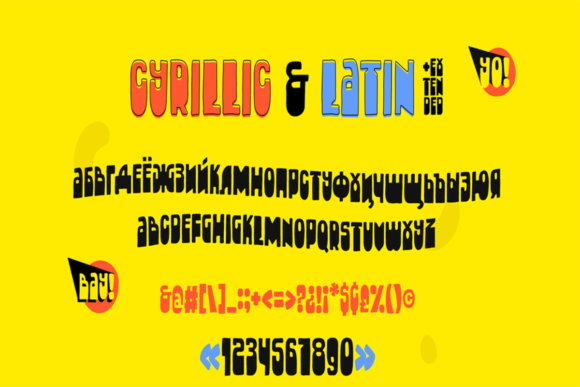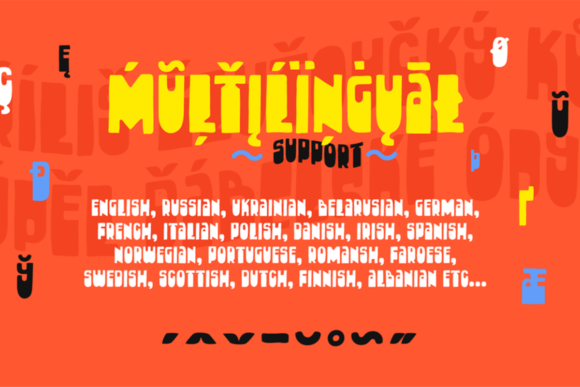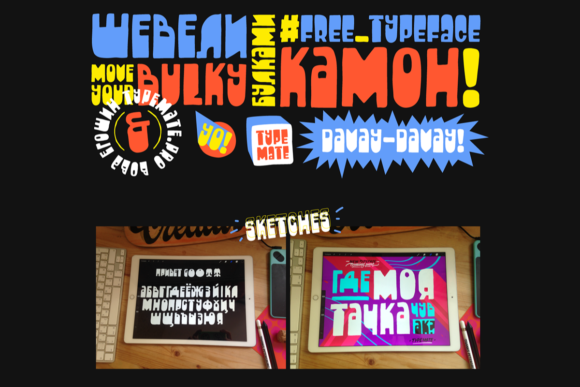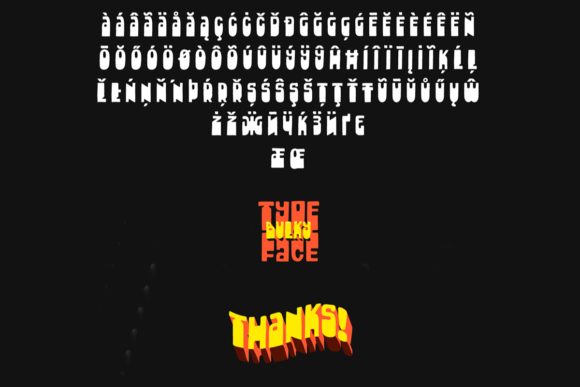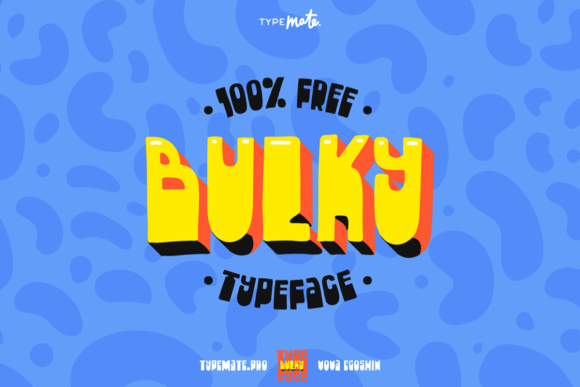
About Bulky Font
The Bulky is a cheerful hand drawn typeface. It has a super friendly feel with a dramatic contrast.
It looks great in headlines, logos, posters, music covers, and much more!